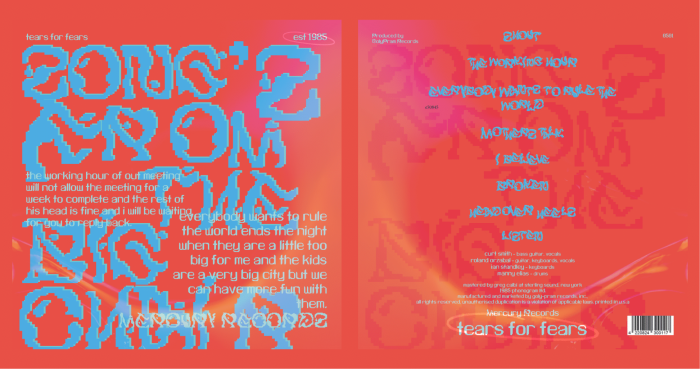
• I made this typeface with the set theme 'Analogue' and 'Lo-fi' given in my graphics design course. I decided on a huamn vs computer style in reference to the analogue theme (as if a computer had attempted to make a hand-drawn font) and its imperfections in reference to the Lo-fi theme (where a computer would fall short of being about to recreate natural human touch). Only the upper case letters have this effect, I made a simple sans serif font to pair with the main upper case letters.
Tears for Fears - songs from the big chair album recreation using my font. Inspired by the recent critisism Tears for Fears recieved for using AI generated art for their newest album cover.